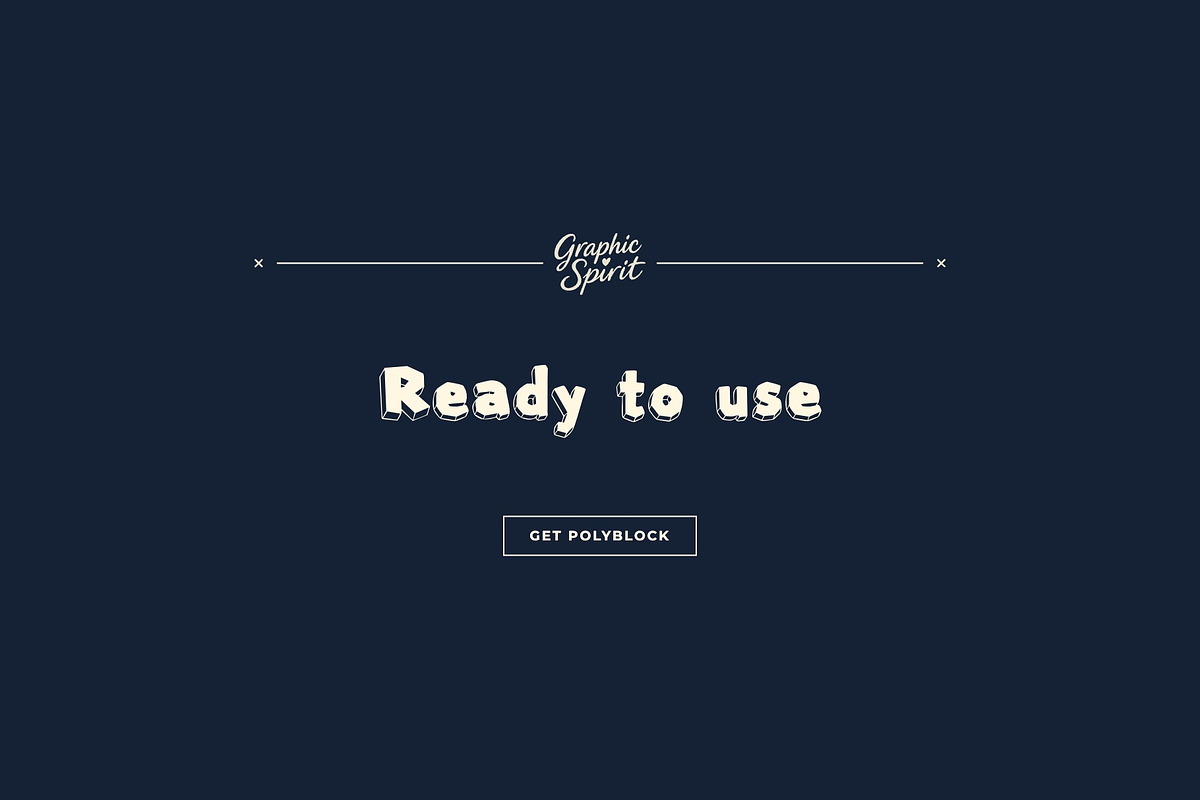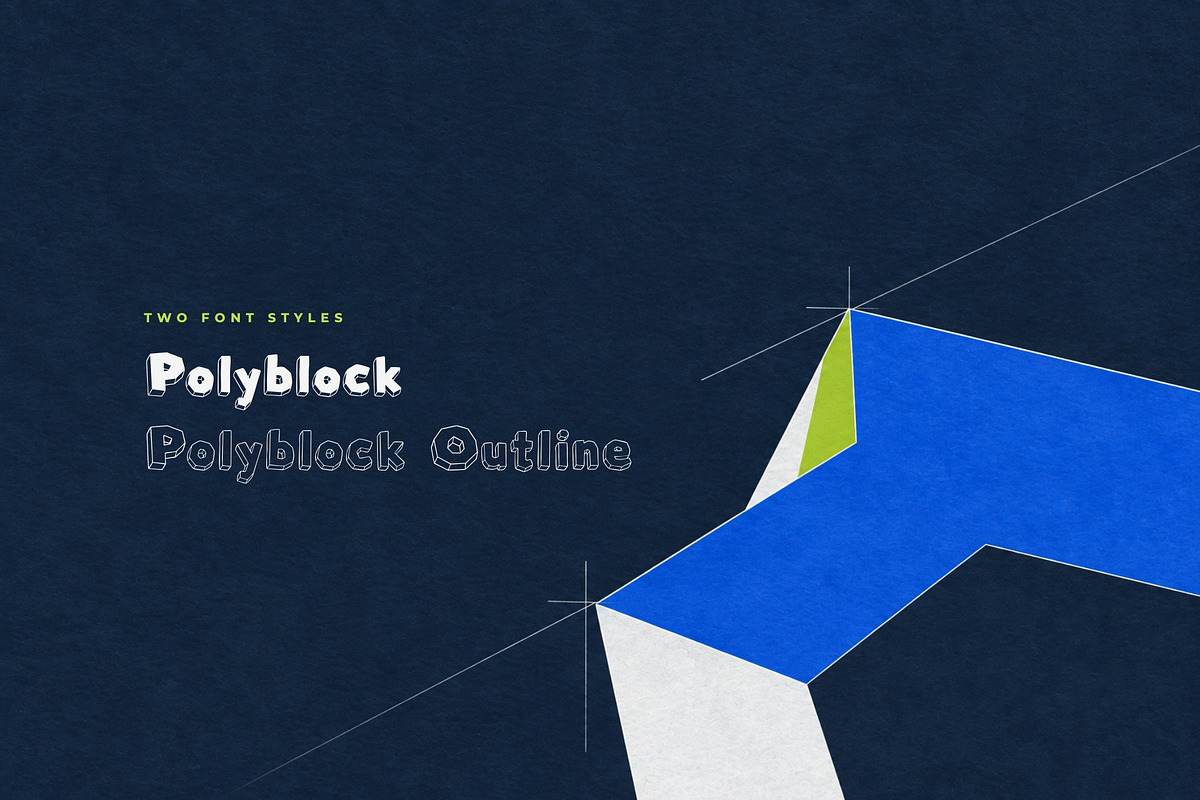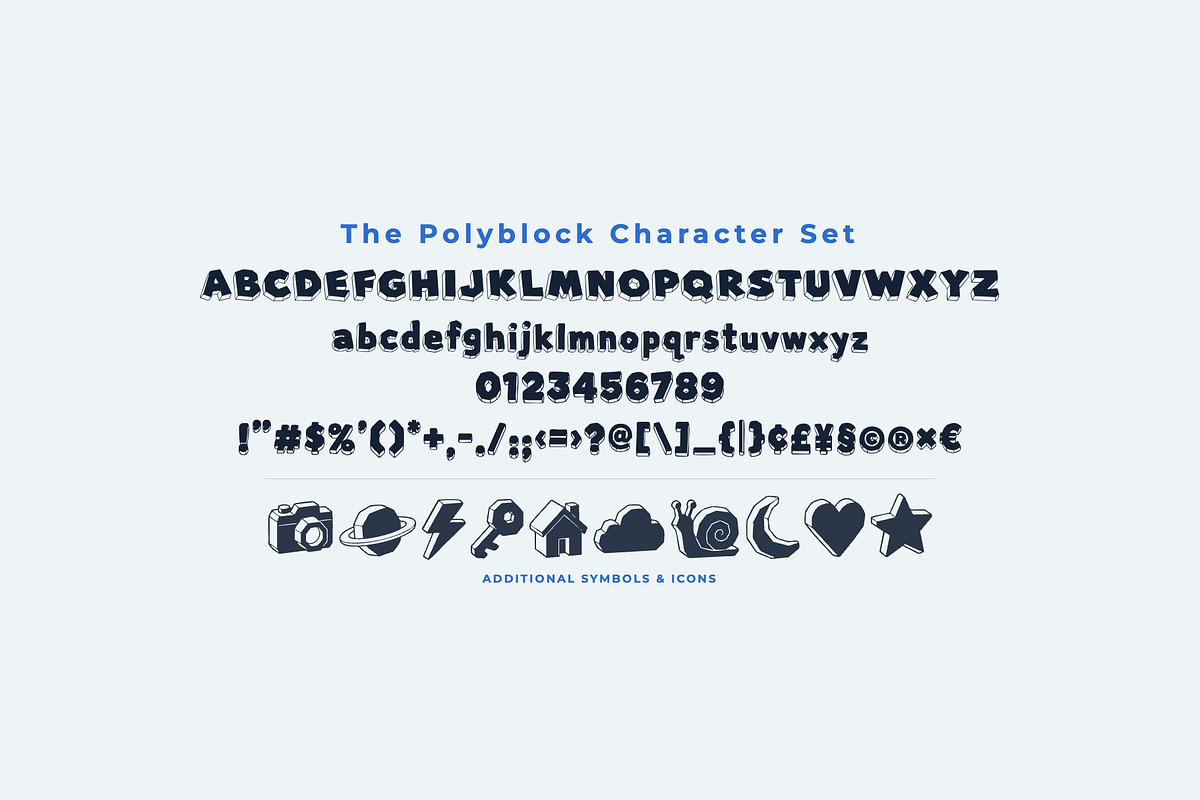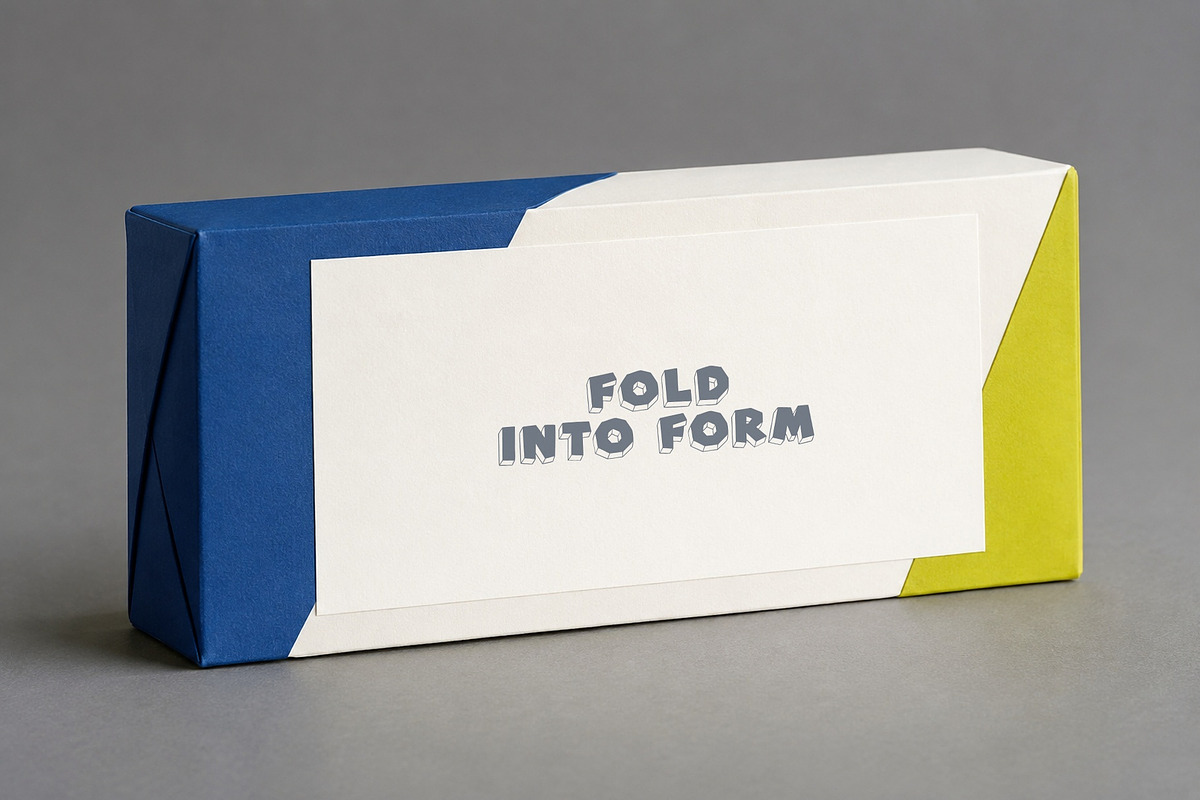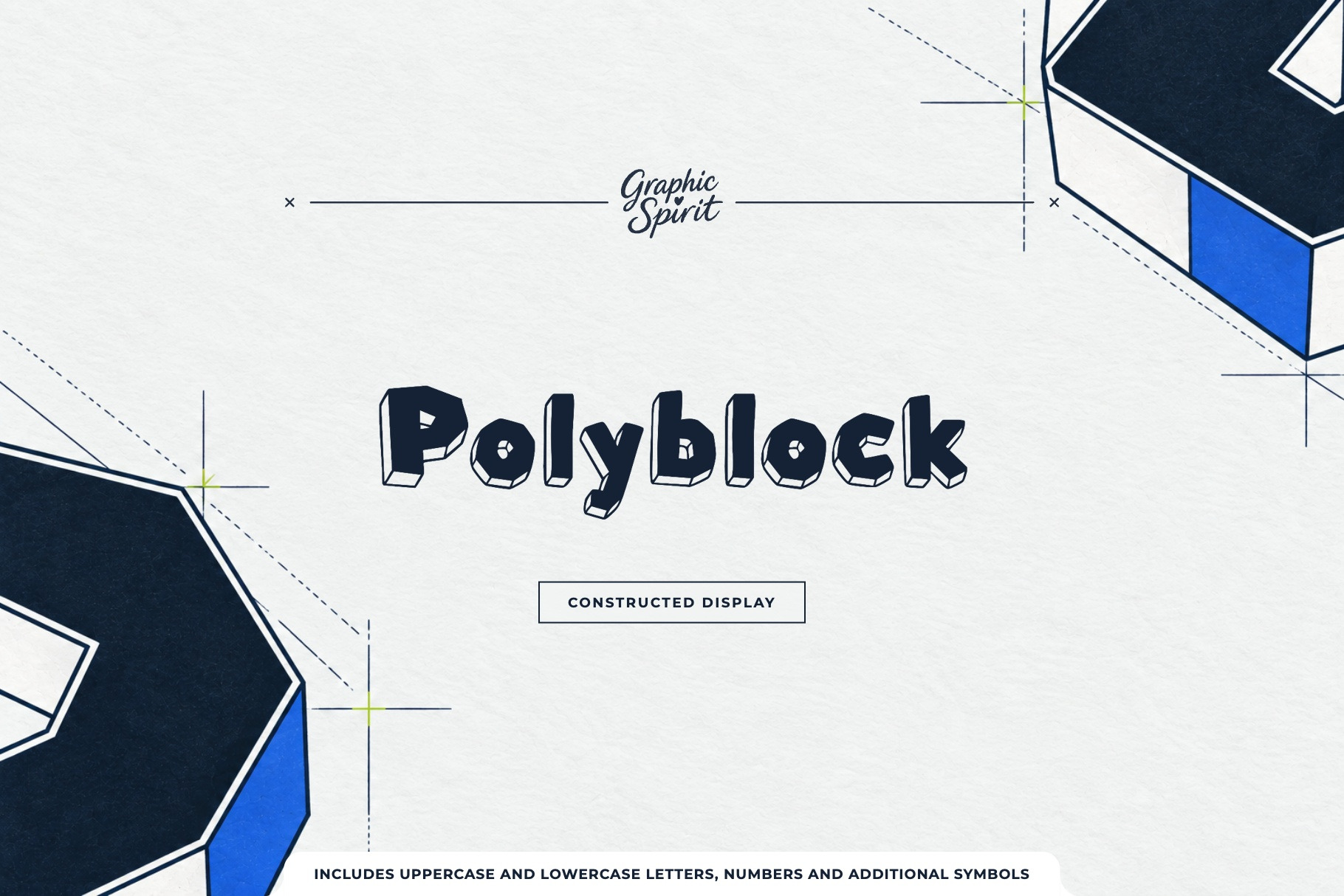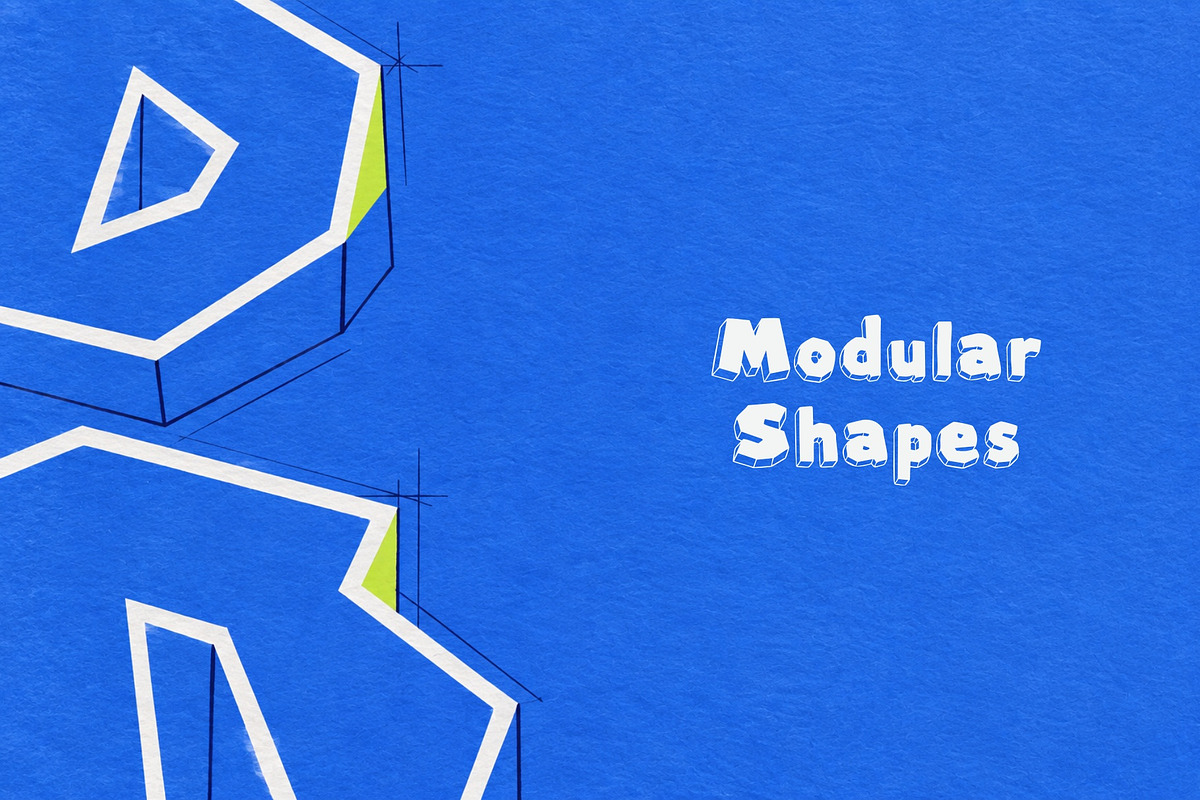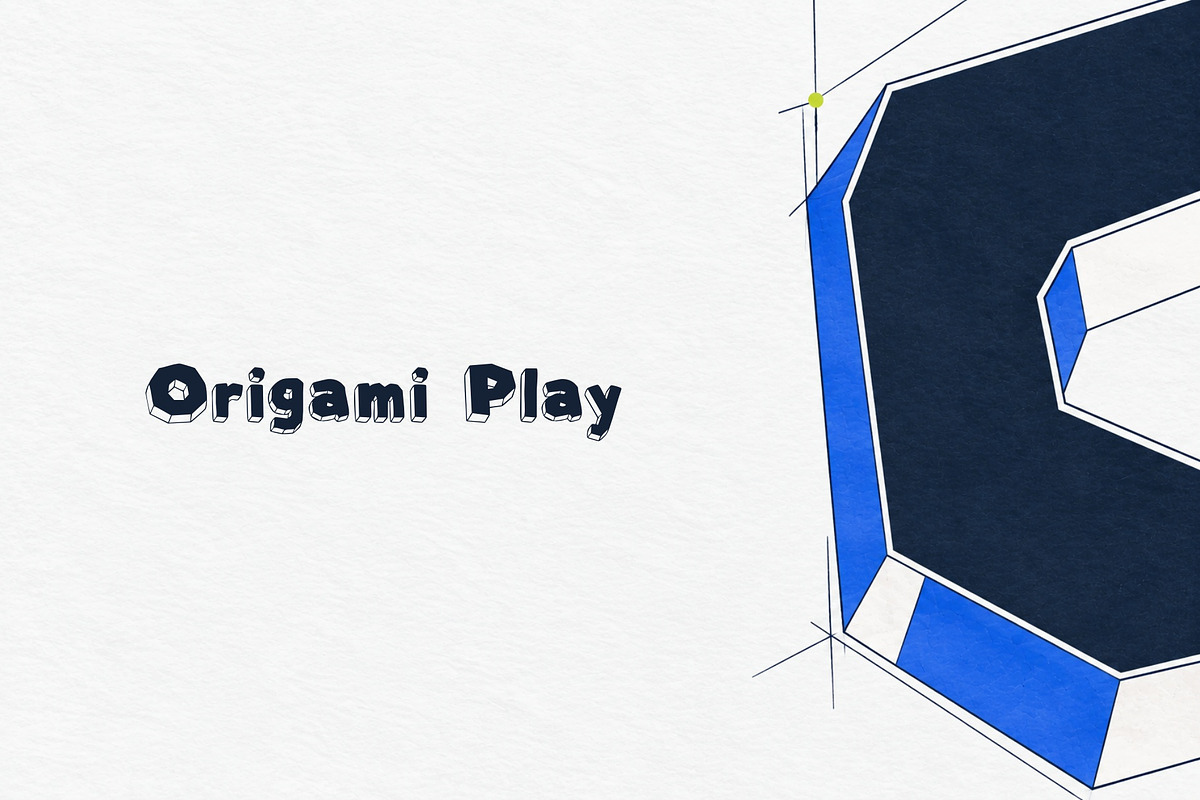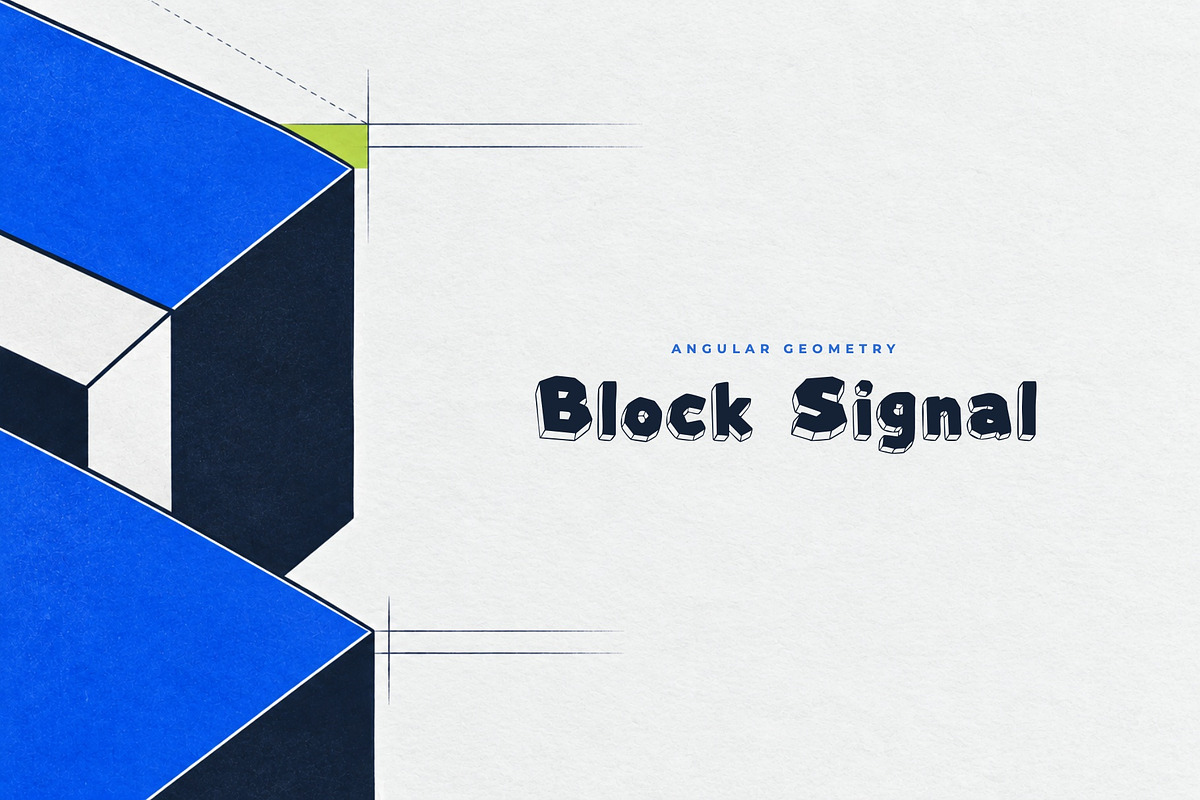
Polyblock Geometric Block Font
🧩 🟦 🎮 ✨ Polyblock is a constructed geometric block family shaped by modular structure and confident graphic clarity. It was created for designers and independent brands looking for expressive display typography that feels specific rather than generic.
🎨 The font works beautifully across modular branding, packaging, games, posters, editorial titles. Use it for a confident headline, a memorable product name, or a typographic accent that ties a visual identity together. 💫
🌟 Best for:
- 🧩 Modular Branding
- 🟦 Packaging
- 🎮 Games
- 🧩 Posters
- 🟦 Editorial Titles